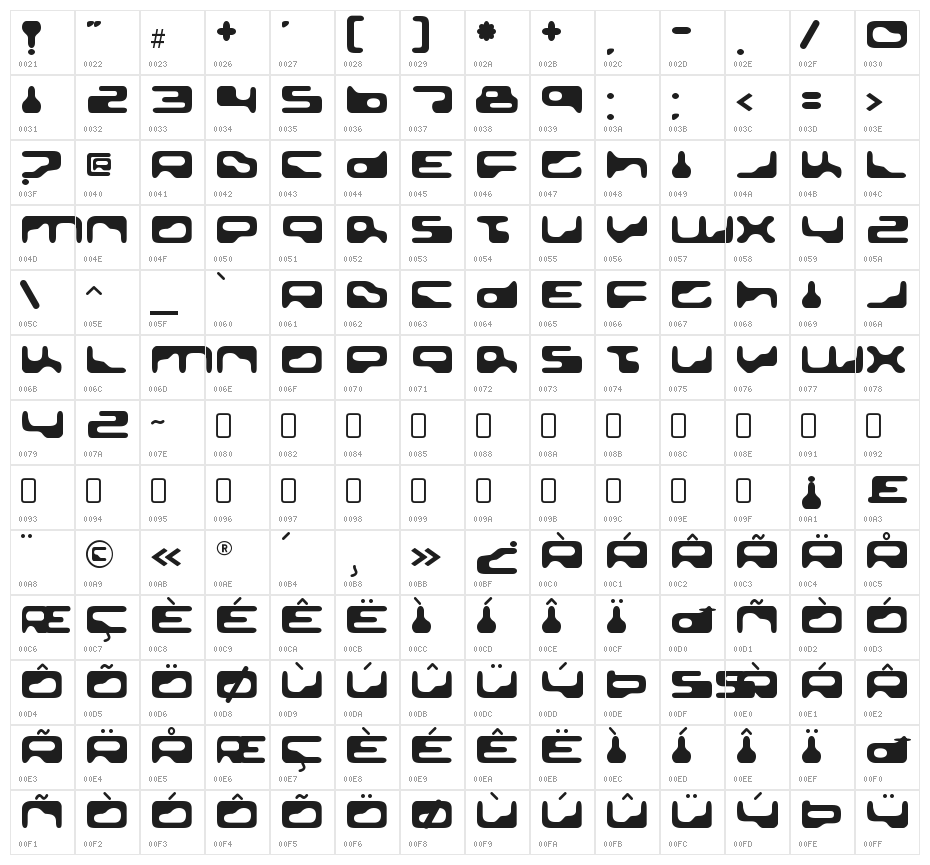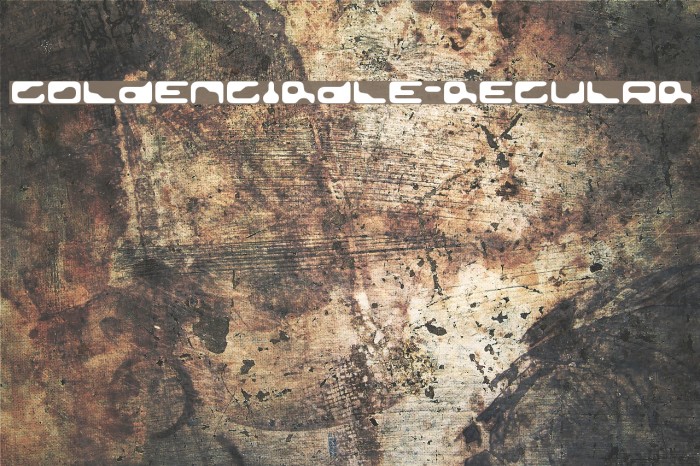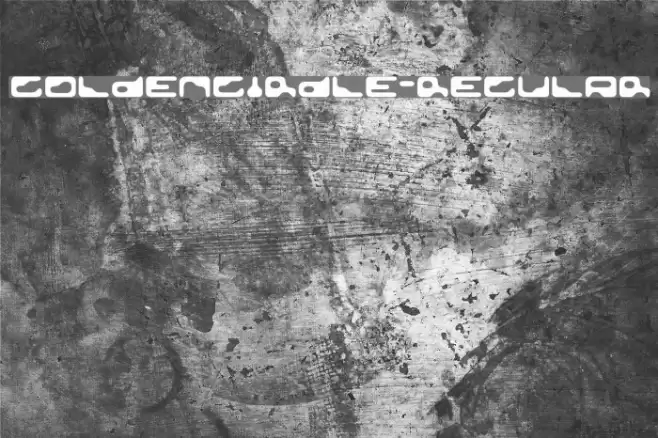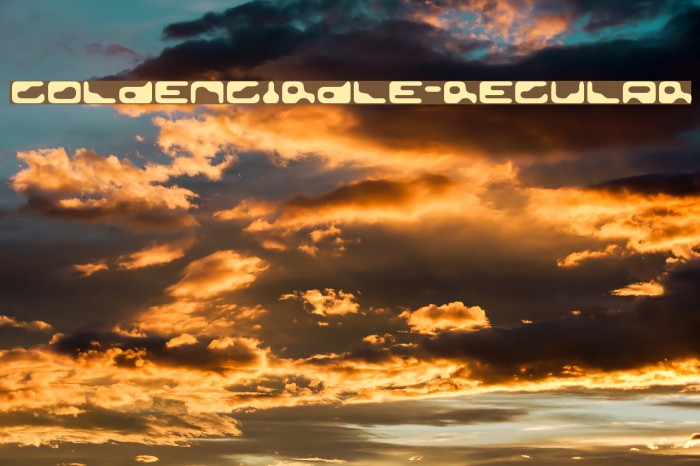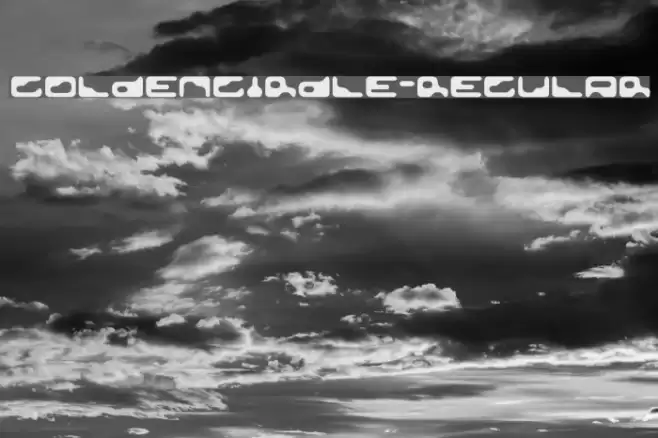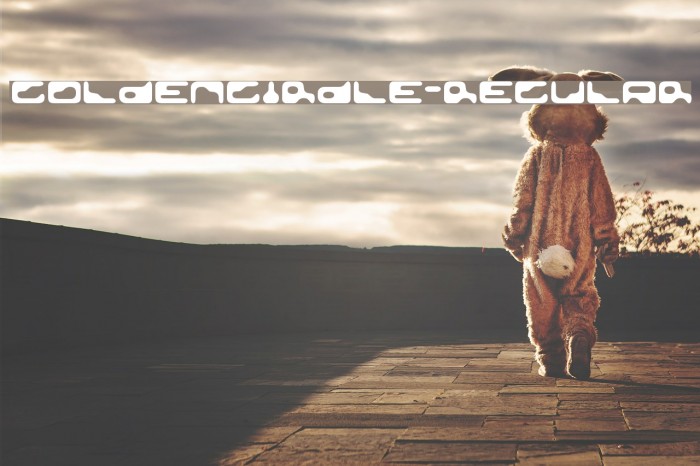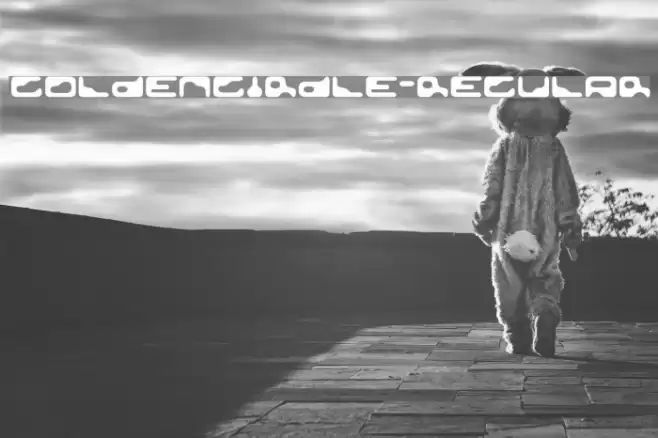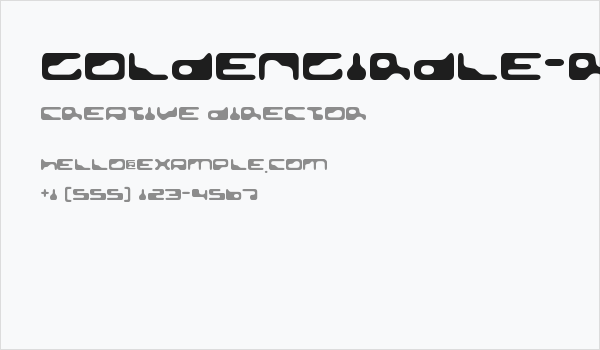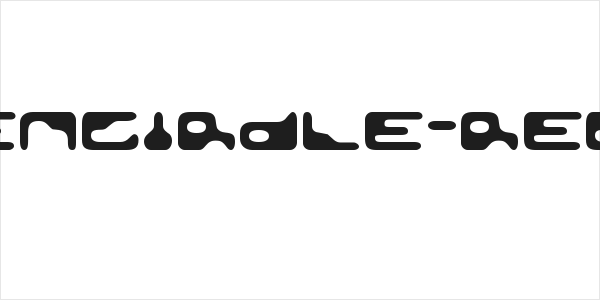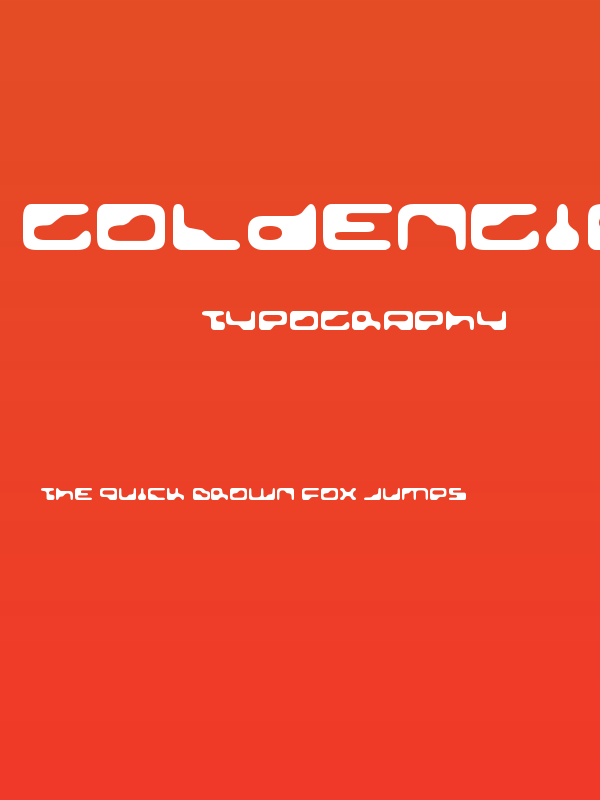
GoldenGirdle-Regular Font
GoldenGirdle-Regular Description
This font features a unique, futuristic design with rounded, bold characters that have a distinct geometric style. The letters are crafted with a combination of thick and thin strokes, creating a high contrast that enhances readability while maintaining a modern aesthetic. The characters are slightly condensed, giving a compact appearance that is both stylish and functional. The font includes a full set of uppercase and lowercase letters, numbers, and a variety of special characters, making it versatile for various design needs. Its playful yet sophisticated look makes it suitable for creative projects that require a touch of modernity.
| Proposed Projects | Ideal for sci-fi themed designs, tech branding, modern posters, and digital media projects. |